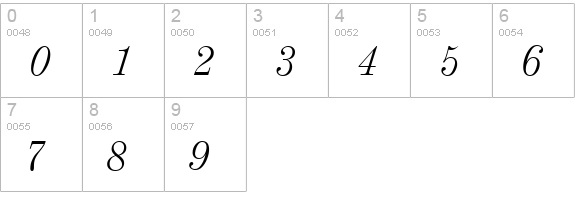
ValenciaSerial-Xlight-Italic Font Details
ValenciaSerial-Xlight-Italic is a distinctive, italic variant in the ValenciaSerial typeface family \xE2\x80\x94 well suited to design and typography projects.
ValenciaSerial-Xlight-Italic is a sleek and elegant font that exudes sophistication and modernity. Its delicate italic style adds a touch of flair and refinement to any design project. Perfect for conveying a sense of luxury and style, this font is ideal for branding, advertising, and editorial purposes. And the best part? ValenciaSerial-Xlight-Italic is completely free to download! You can easily access this stunning font at FontsMarket.com, where you can add it to your collection without any cost. Don't miss out on the opportunity to enhance your designs with this beautiful typeface that combines grace and professionalism in a unique way.